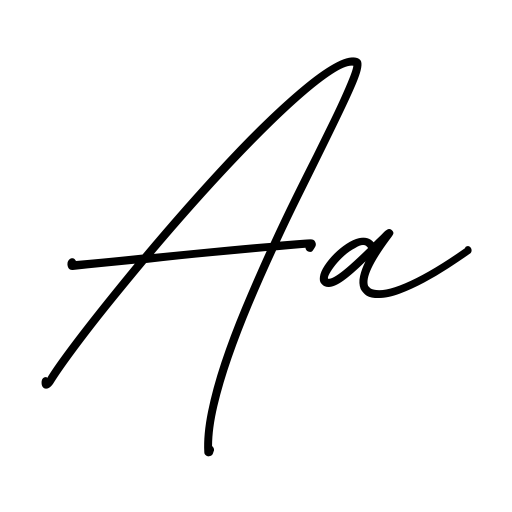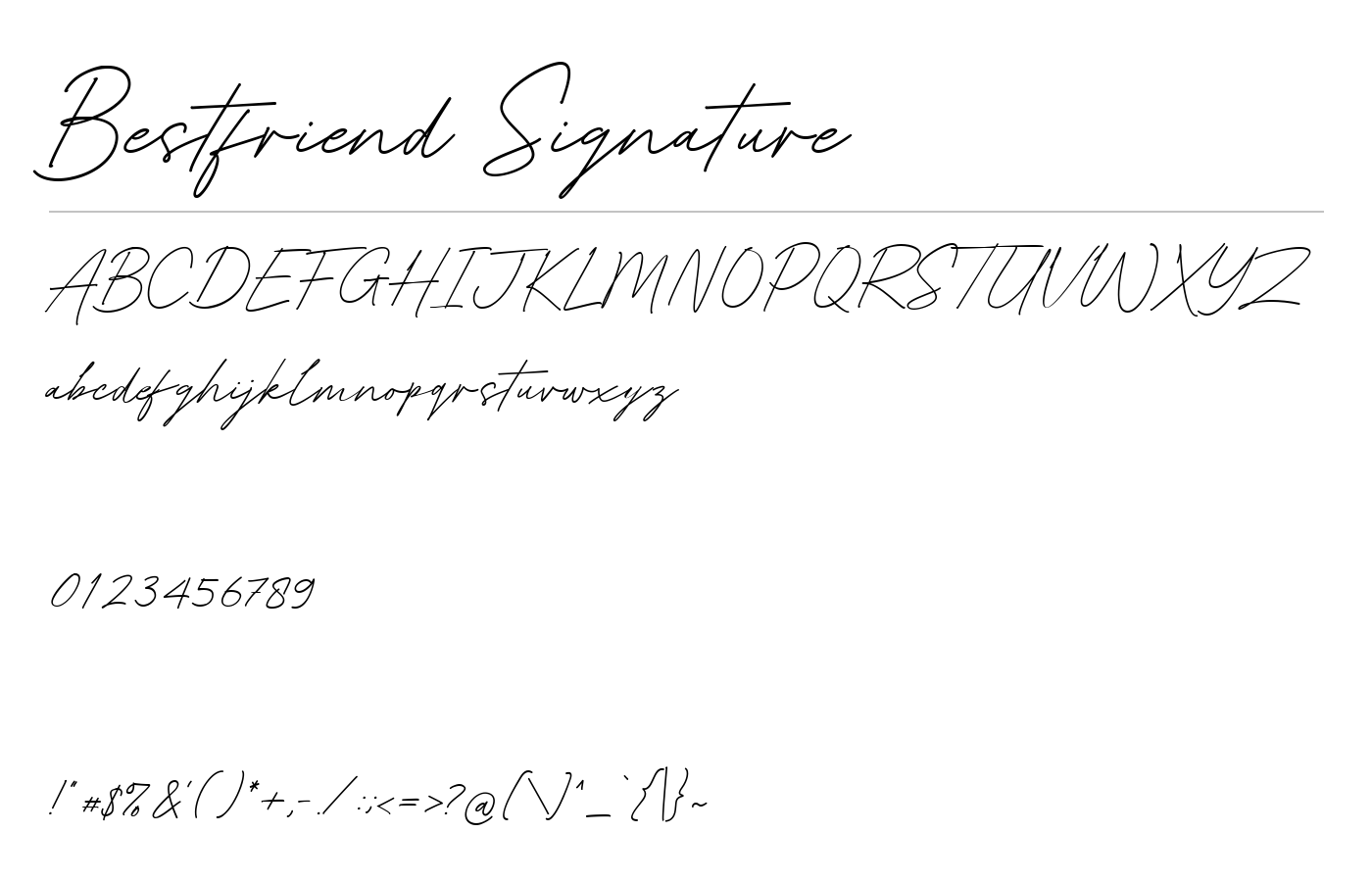
Bestfriend Signature is a delicate, handwritten script font that exudes elegance and a personal touch with its thin, flowing strokes and natural letterforms. Its light weight and airy spacing make it perfect for stylish branding, invitations, and social media designs where a refined yet approachable feel is desired. This font works especially well in projects wanting to convey warmth and sophistication with a modern, signature-like flair.
Bestfriend Signature Font
About Bestfriend Signature Font
| Font family | Bestfriend Signature Font |
| Languages supported | Latin, Symbols, Myanmar, Greek |
| Designer | Iqbal Pauji |